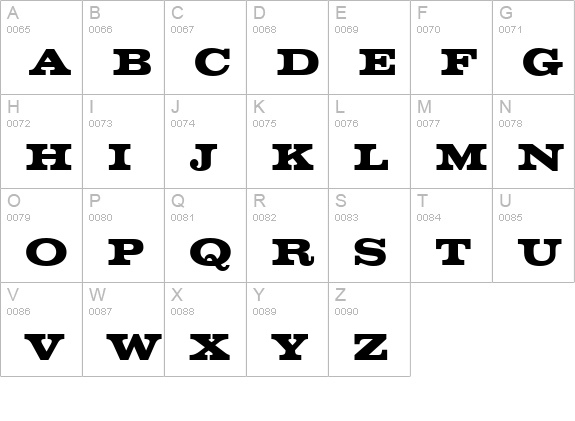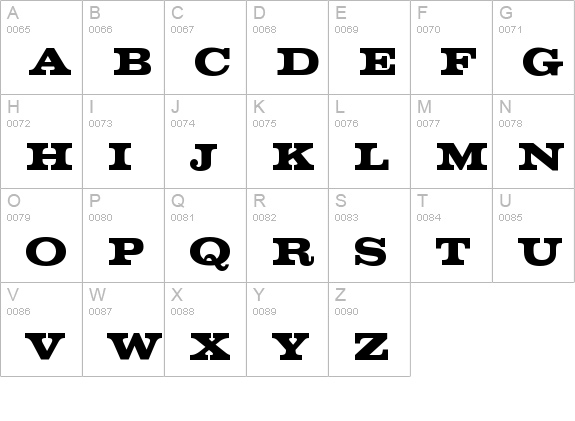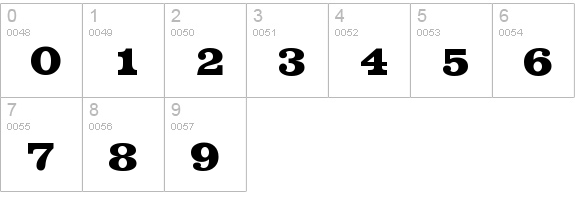
Chesterfield Regular Font Details
Chesterfield Regular is the standard, neutral variant in the Chesterfield typeface family \xE2\x80\x94 well suited to general body text, paragraphs, and standard typographic work.
Chesterfield Regular font is a timeless and sophisticated typeface that exudes elegance and class. With its clean lines and classic appeal, Chesterfield Regular is the perfect choice for projects that require a touch of refinement. This versatile font can be used for a variety of design purposes, from branding to invitations to editorial layouts. What's even better is that Chesterfield Regular font is available for free download at FontsMarket.com. So whether you're a seasoned designer looking to add a new font to your collection or a beginner searching for the perfect typeface for your next project, Chesterfield Regular is the ideal choice. Download this exquisite font now and elevate your designs with its timeless charm and style.